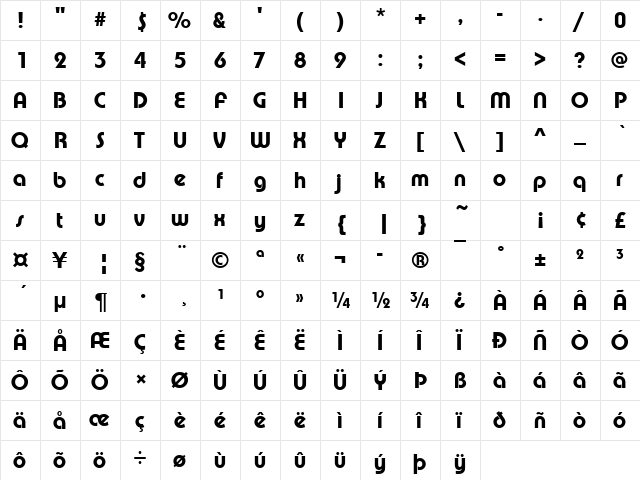
URWPuiseuxDMed Regular
URWPuiseuxDMed takes a measured approach to typography — its balanced proportions and neutral character make it a reliable workhorse for both digital and print work.